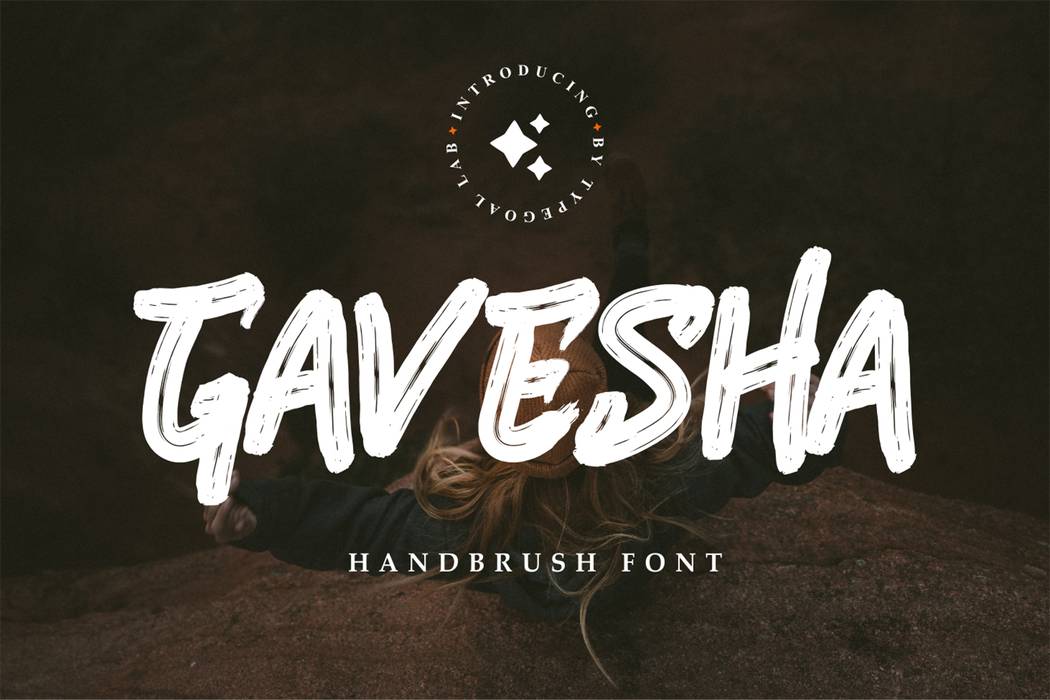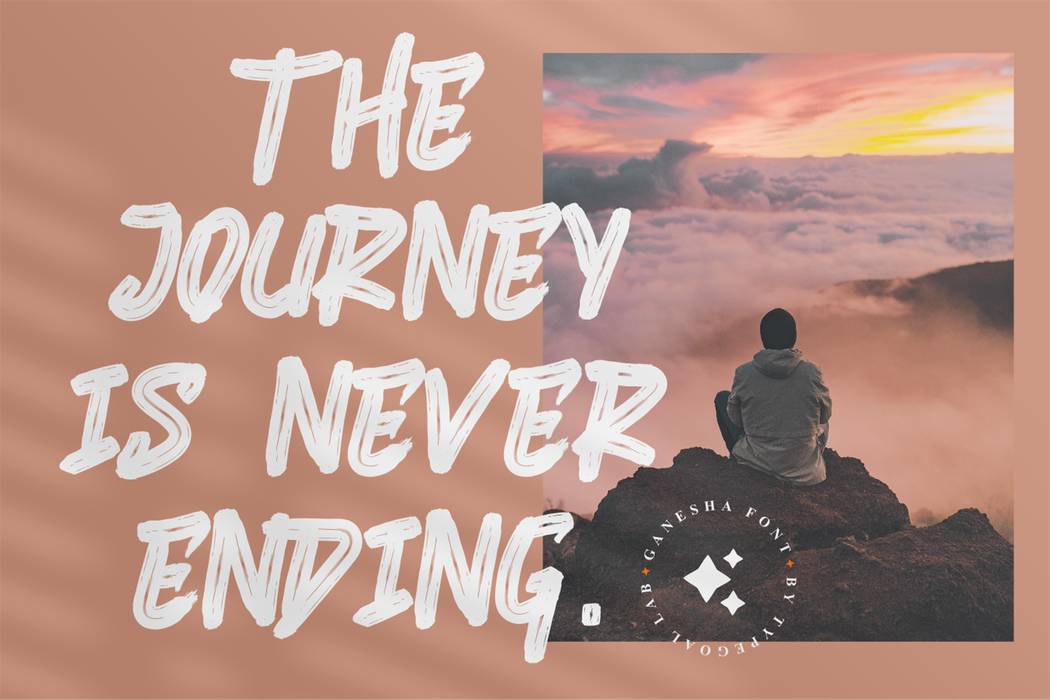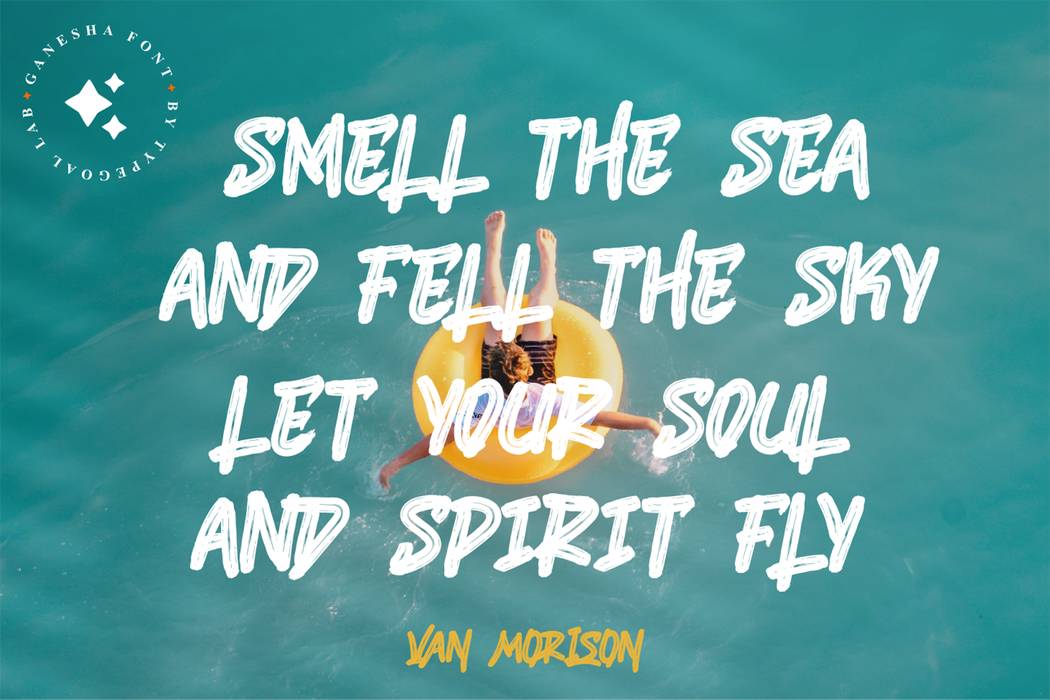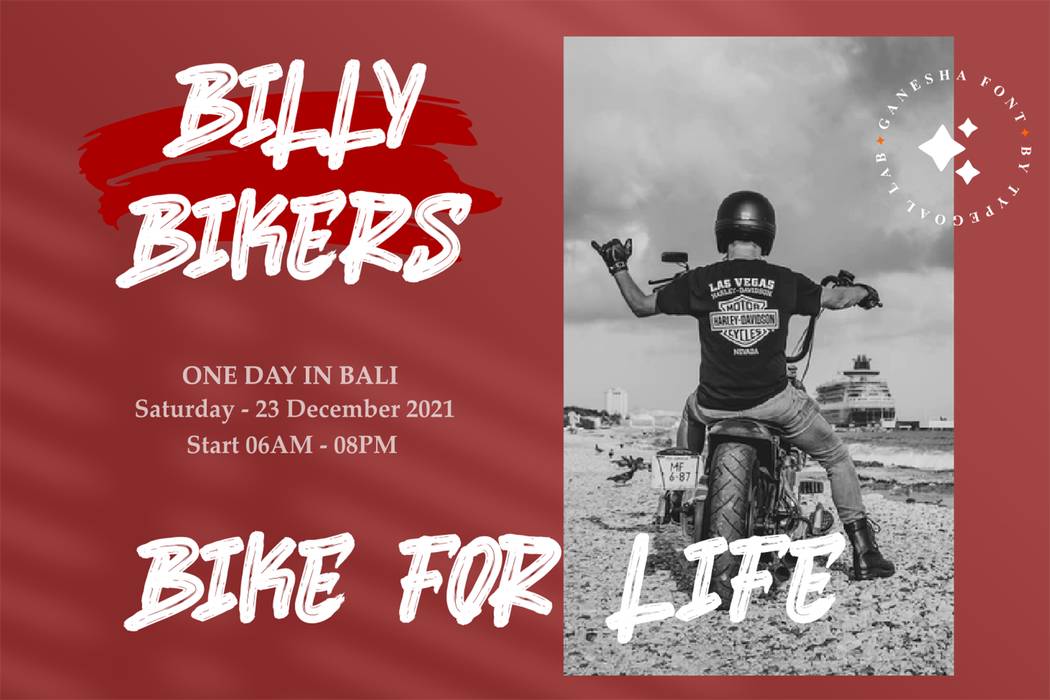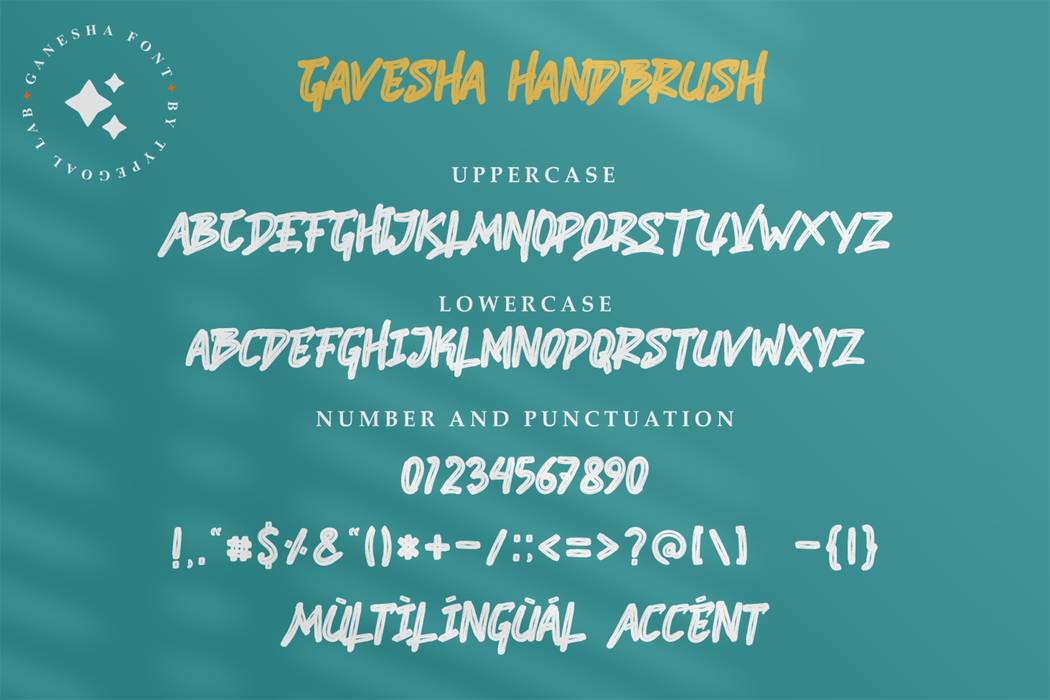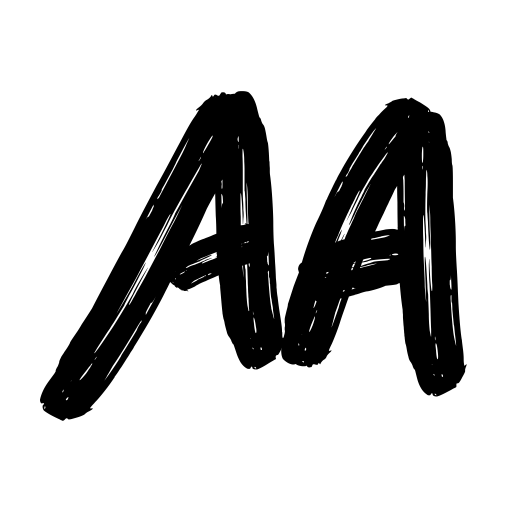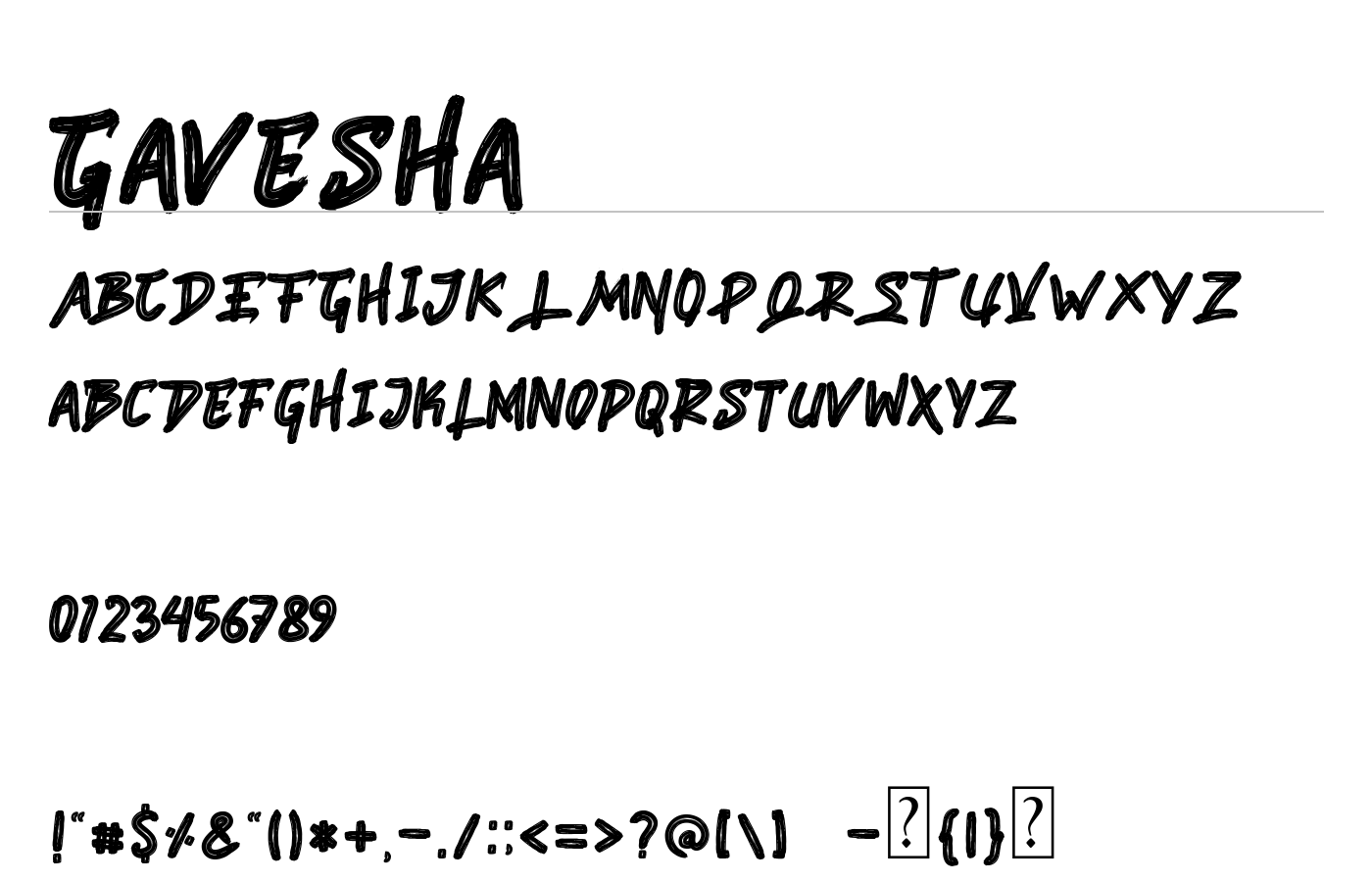
Gavesha is a bold, playful handwritten font with a casual and artistic vibe, featuring rough, brush-like strokes that bring energy and character to the letters. Its uppercase, slightly condensed letterforms and distinct irregularities make it ideal for creative headlines, logos, and designs that want to convey a fun, informal, and dynamic personality. This font works well in branding or projects seeking a hand-crafted, approachable feel without sacrificing readability.
Gavesha Font
About Gavesha Font
| Font family | Gavesha Font |
| Release date | 2021-05-20 |
| Designer | Elevencreative |